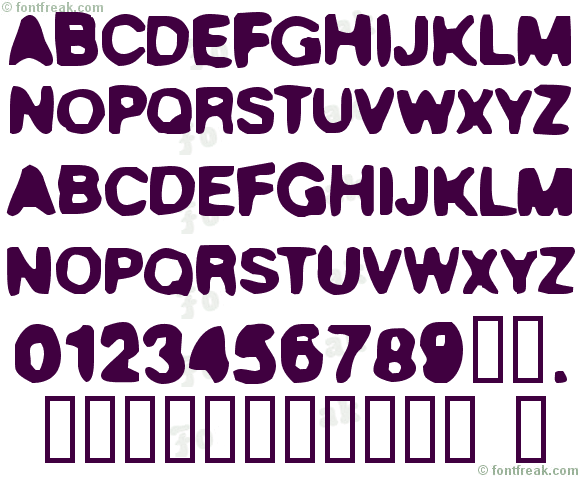
True Stories
The True Stories font by Robotic Attack Fonts is a captivating display typeface that embodies a playful yet bold aesthetic. This font, classified as a decorative style, features thick, rounded letterforms that immediately draw attention. The stroke weight is consistent throughout, providing a strong visual presence, while the slight contrast in curvature adds a unique charm. The spacing between letters is generous, enhancing readability and creating an inviting appearance, making it ideal for various creative applications.
True Stories is particularly well-suited for use cases such as children's book covers, where its whimsical nature can engage young readers. It also shines in designing eye-catching movie posters, lending a fun and approachable vibe that aligns well with family-friendly films. Additionally, this font can elevate restaurant menus, giving them a casual yet stylish look that appeals to diners. Small business owners can utilize this font in marketing materials or social media graphics to convey a sense of creativity and warmth. Content creators looking for a distinctive typeface for personal branding or online platforms will also find True Stories to be a valuable asset.
Targeting graphic designers, small business owners, and content creators, the True Stories font free download offers an accessible option for those seeking to enhance their projects with a touch of uniqueness. Its playful design and versatility make it a standout choice in the realm of decorative fonts. By incorporating True Stories into your designs, you can create engaging visuals that resonate with your audience, making it a fantastic addition to any creative toolkit. Whether you're crafting whimsical invitations or vibrant promotional materials, True Stories is sure to leave a lasting impression.